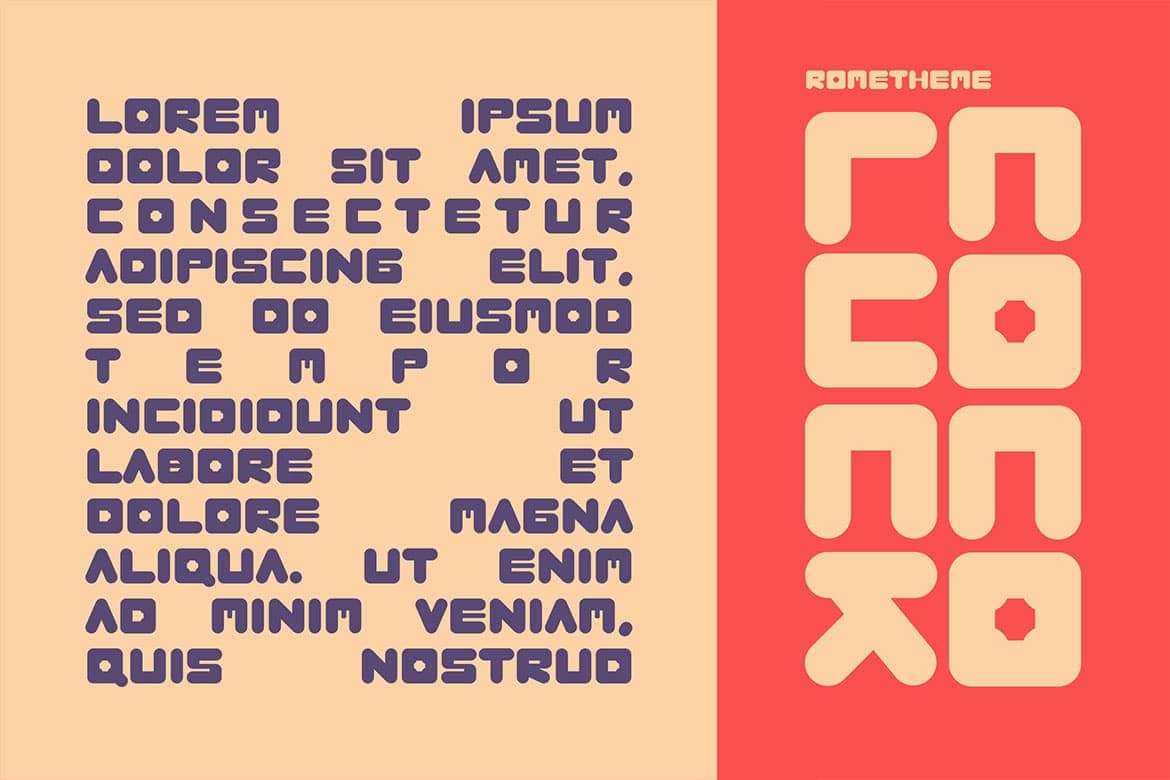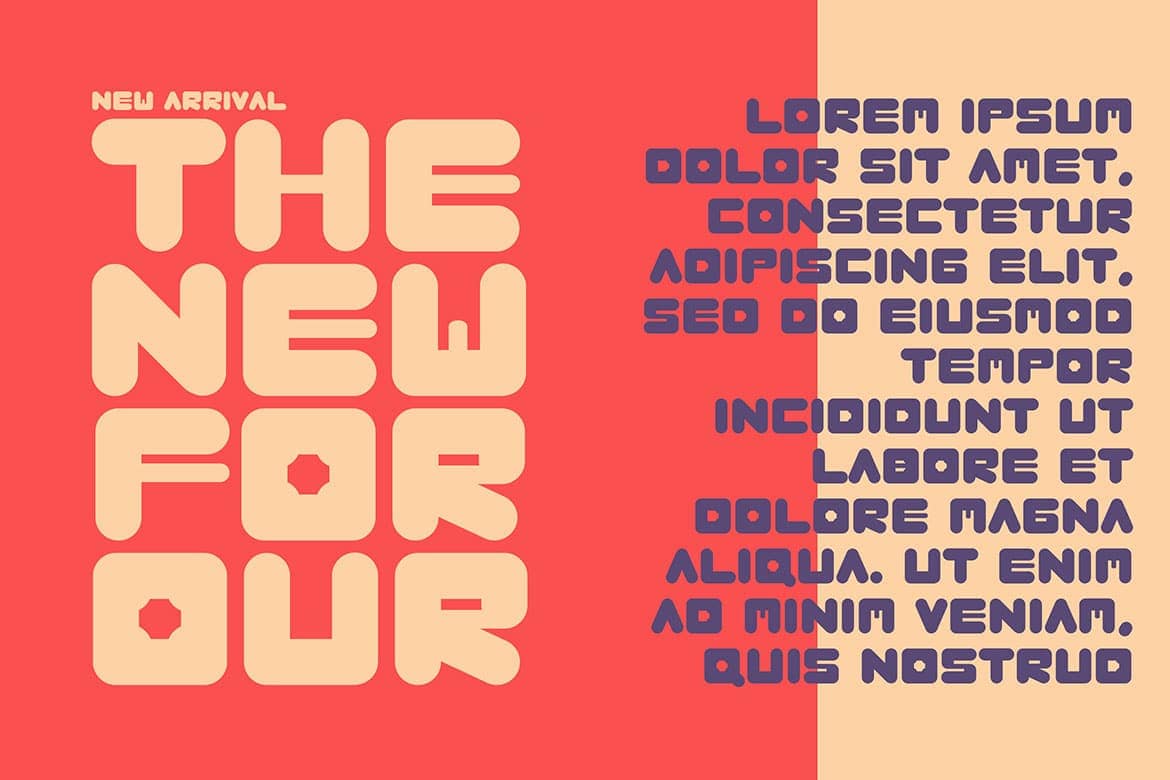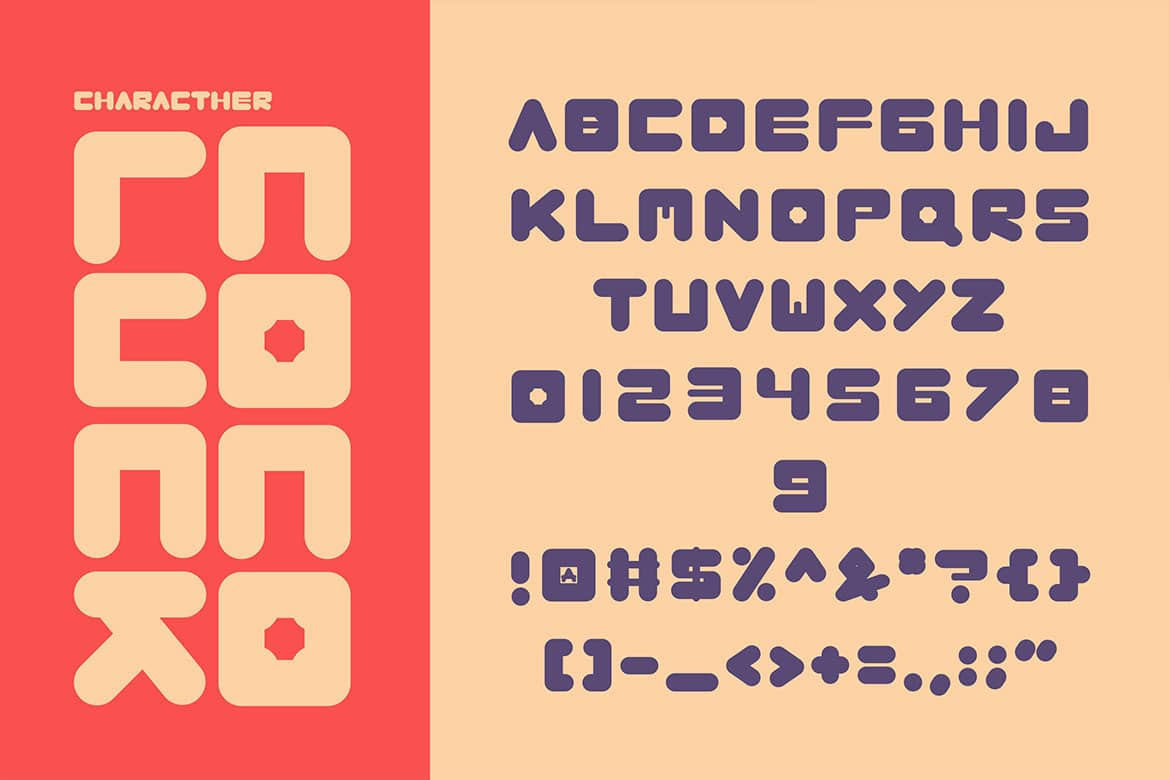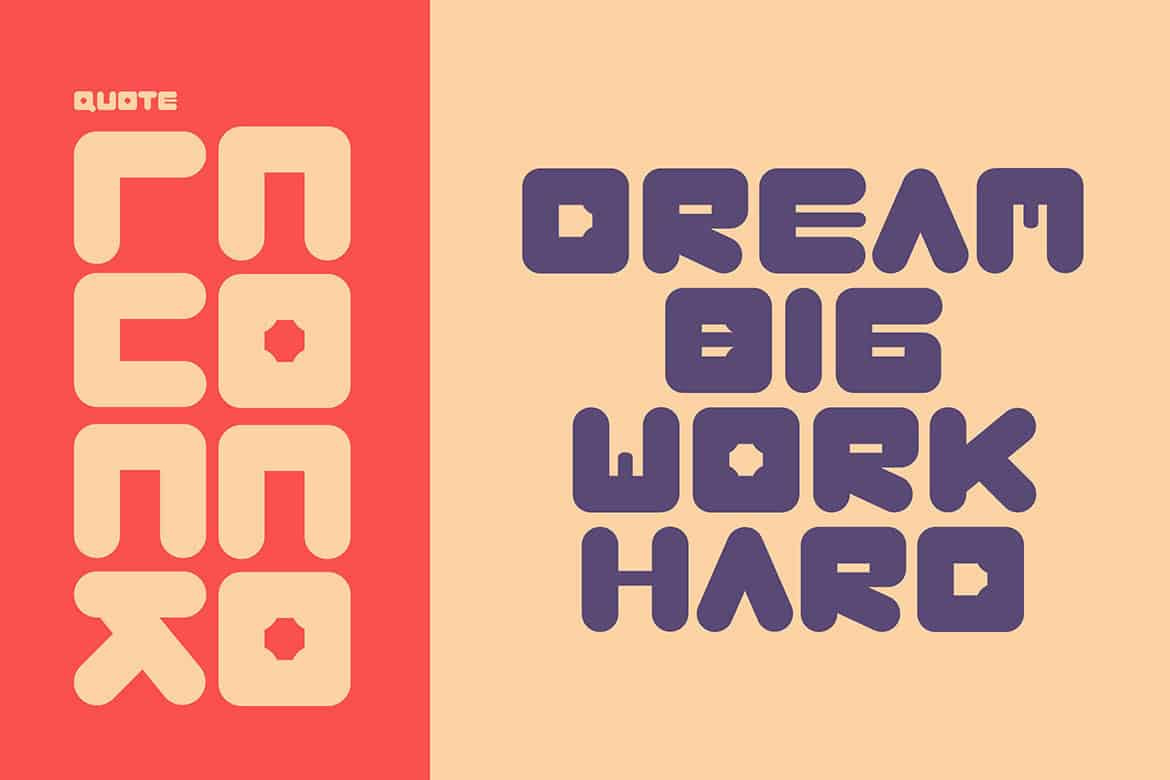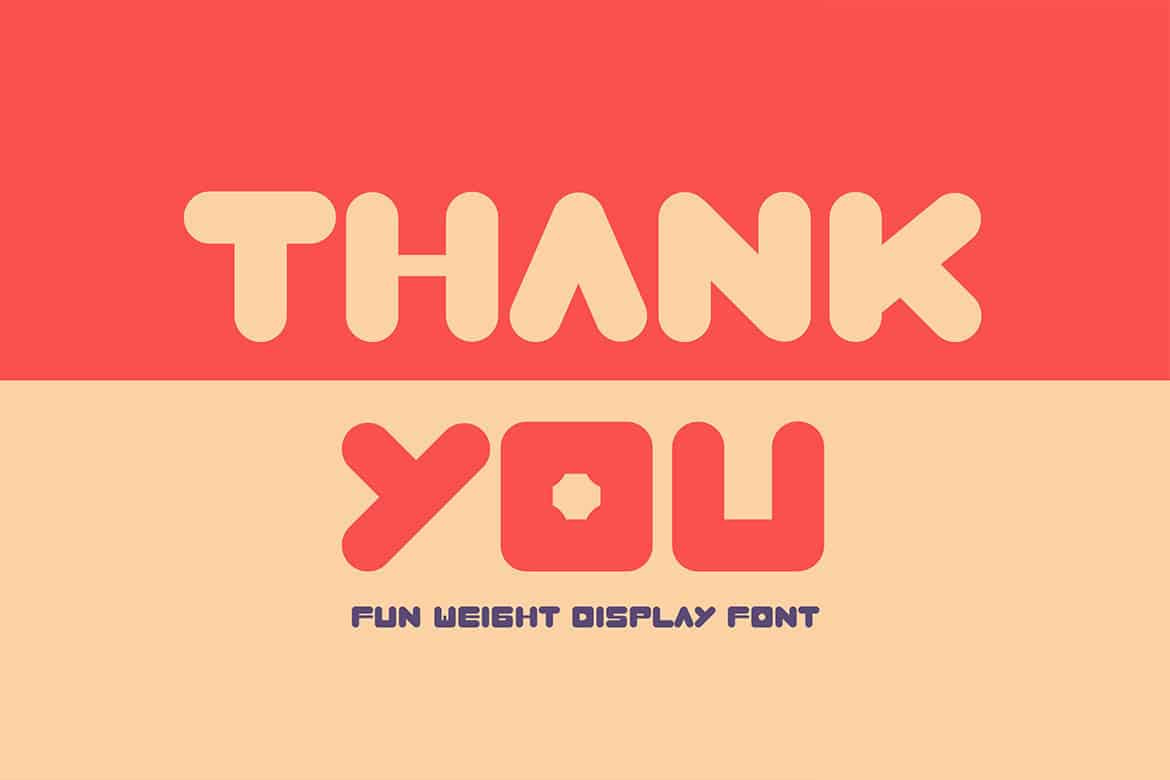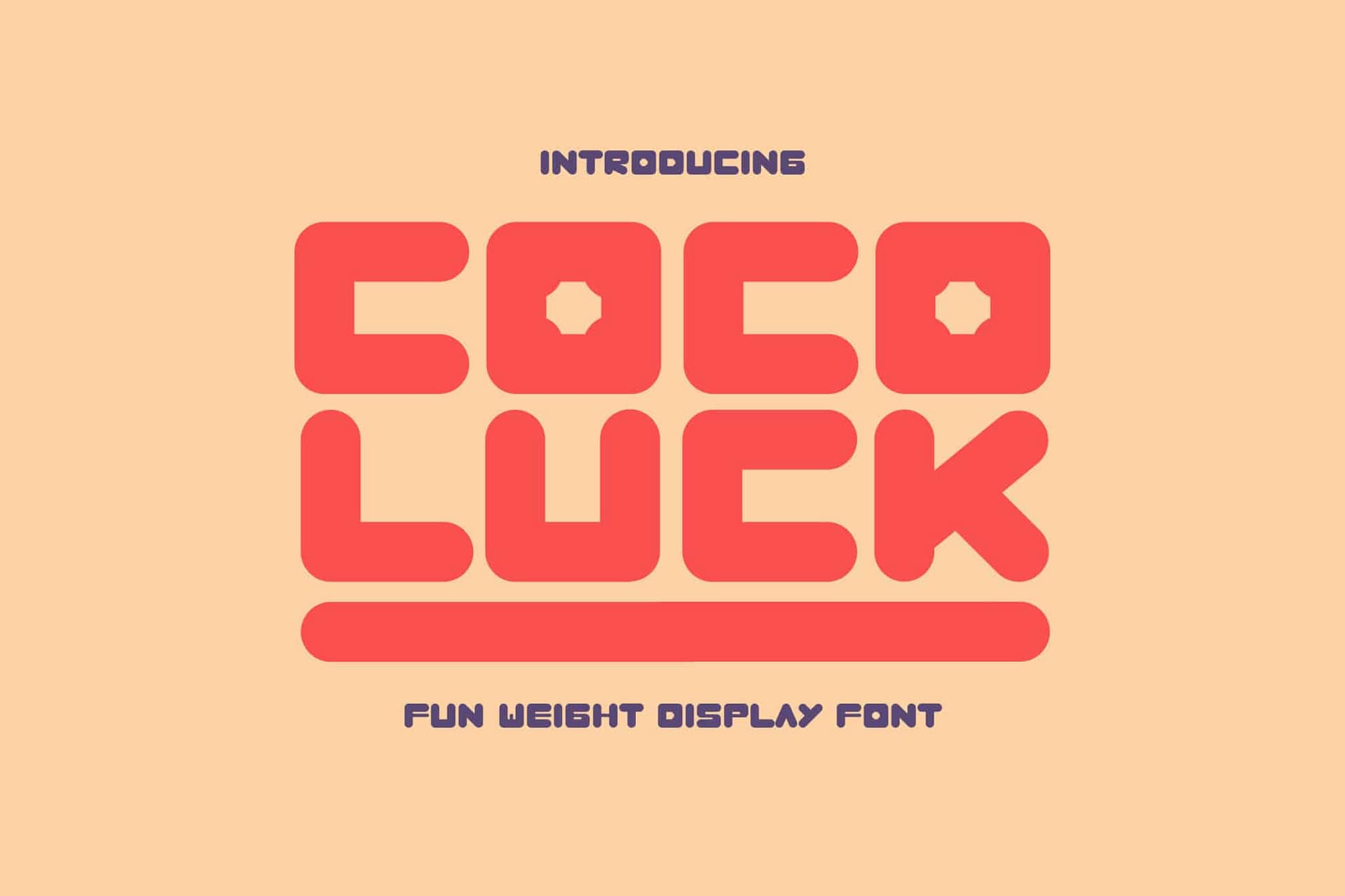
Cocoluck – Fun Weight Display Font. Bold and rounded typeface. This font looks modern, cute, fancy, readable, stylish, catchy and easy to use. Itโs a great font for fashion, apparel projects, signature, album cover, logo, branding, magazine, social media, & advertisements, but also works great for other projects.
- Basic Latin A-Z and a-z
- Numbers
- Punctions
- Multilingual Support